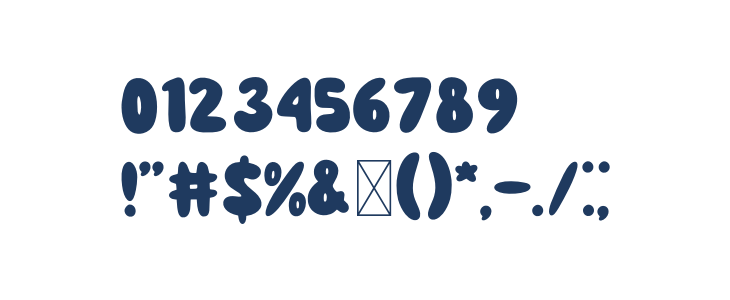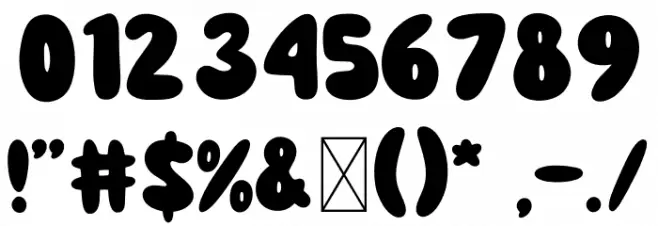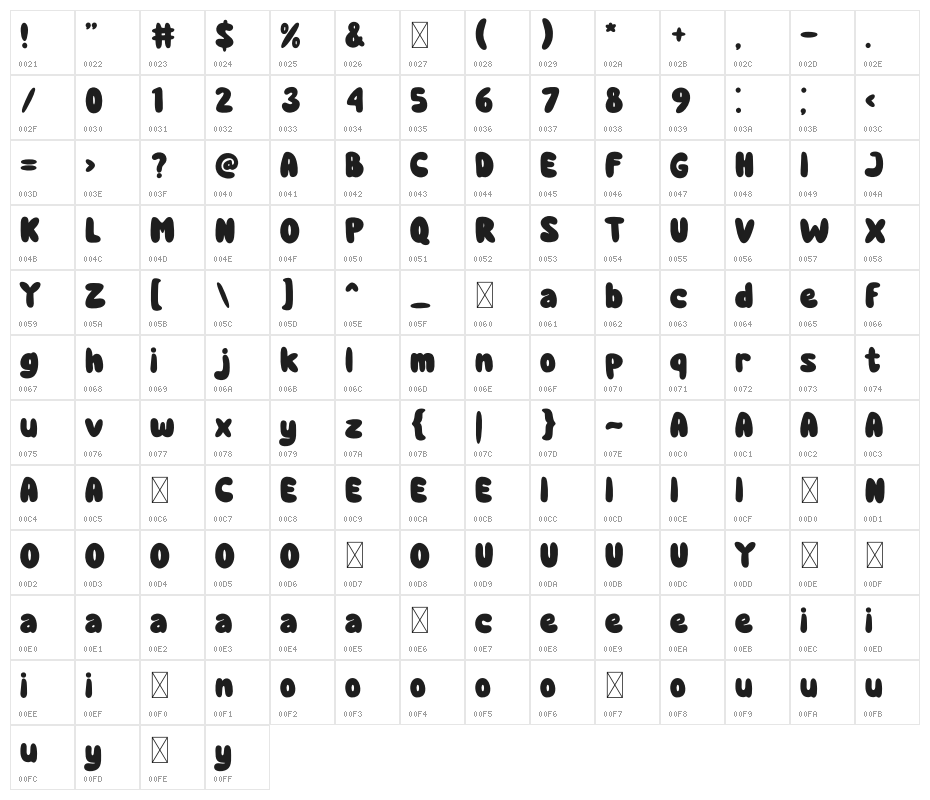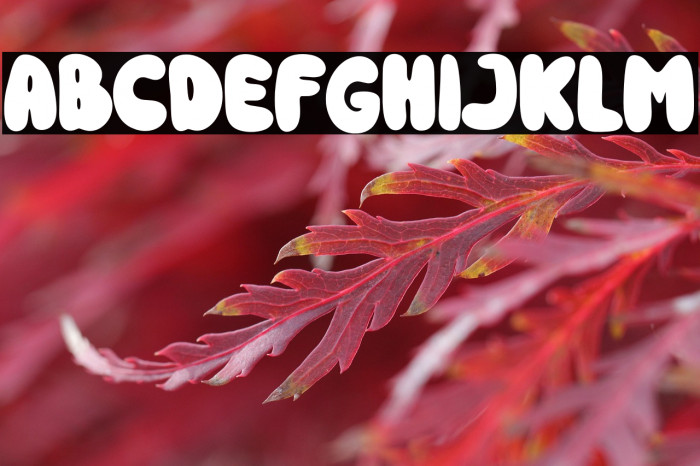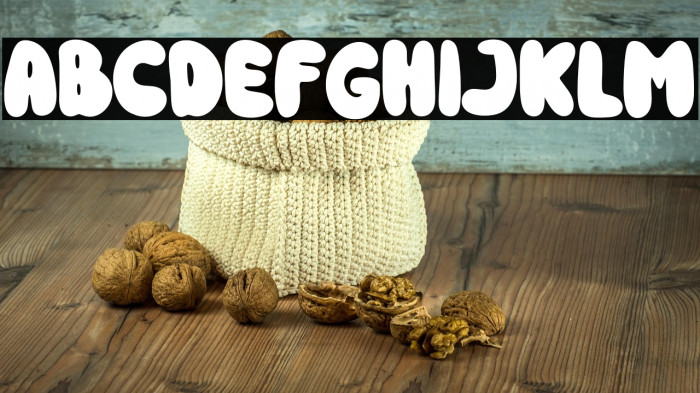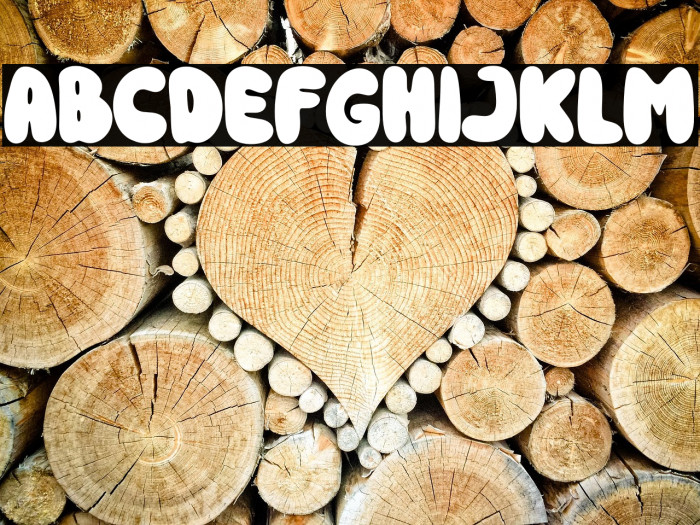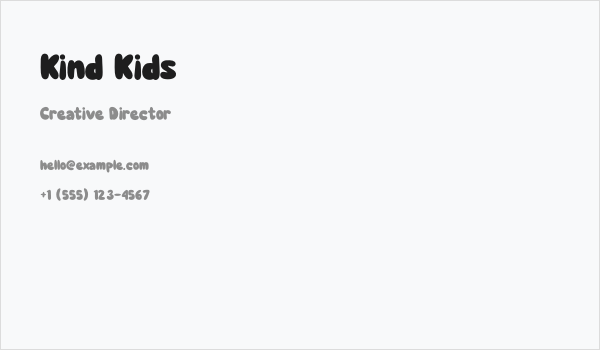
Kind Kids Font
Kind Kids Description
This playful and bold font features rounded, bubbly characters that exude a sense of fun and friendliness. The letters are thick and uniform, with a consistent stroke width that gives them a solid and substantial appearance. The overall design is informal and approachable, making it ideal for projects aimed at children or for conveying a lighthearted tone. The numbers and special characters maintain the same playful style, ensuring consistency across all text elements.
Overall StylePlayful
Proposed ProjectsIdeal for children's books, playful branding, toy packaging, and educational materials.